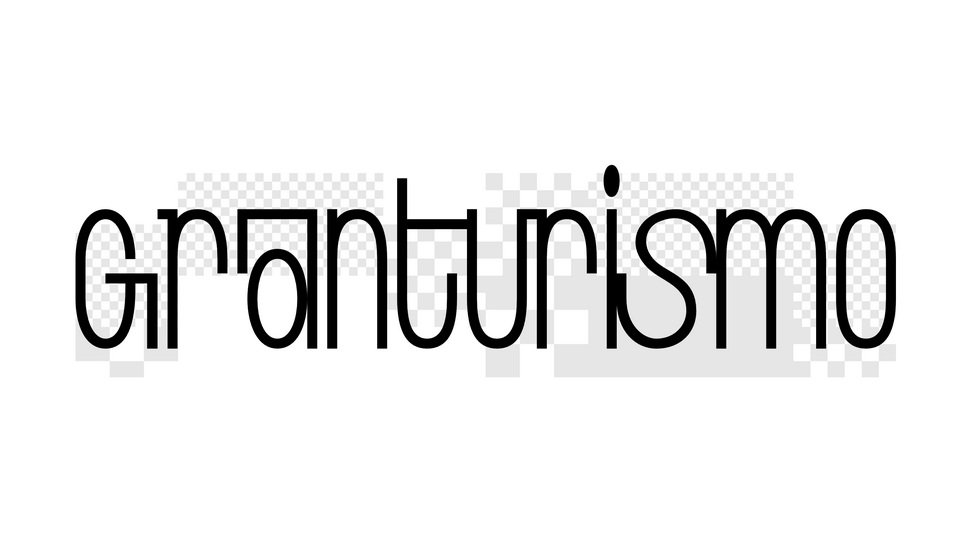
Download Granturismo font, a variable type family inspired by speed and sound. With its unique letterforms and variable reverse contrast, Granturismo is perfect for loud messages, impressive posters, bold headlines and album artworks.
Designer: Nathan Laurent